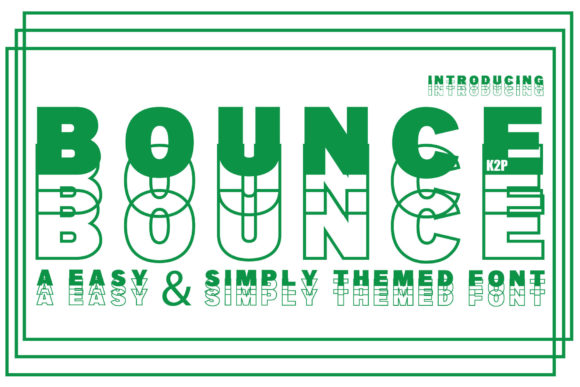
Introducing Bounce Font: Unleash the Vibrant Energy in Your Designs
Prepare to be captivated by Bounce Font, the ultimate display font that exudes boldness, originality, and speed. Buckle up and let your designs take the lead with Bounce Font. Its electrifying style is guaranteed to leave an unforgettable impression on your audience. Whether it's scorching race tracks or adrenaline-pumping sports, Bounce Font is your perfect companion.
Bounce Font, created by the ingenious KtwoP, is a dynamic display font that oozes personality. Its energetic vibe and powerful presence will instantly transform your designs into masterpieces. Experience the rush of adrenaline as your creations redefine boundaries and leave a lasting impact.
Step into a world of versatility with Bounce Font. Its adaptability knows no bounds. From captivating sports graphics to electrifying racing posters, Bounce Font effortlessly complements any theme or style. Let your imagination soar and witness the magic unfold as you craft captivating designs that resonate with your audience.
Bounce Font isn't merely a font; it's a gateway to a world of creative possibilities. Unveil the hidden potential within your designs and watch them come alive with vibrant energy. Embrace the thrill of speed and let Bounce Font ignite your passion for excellence.